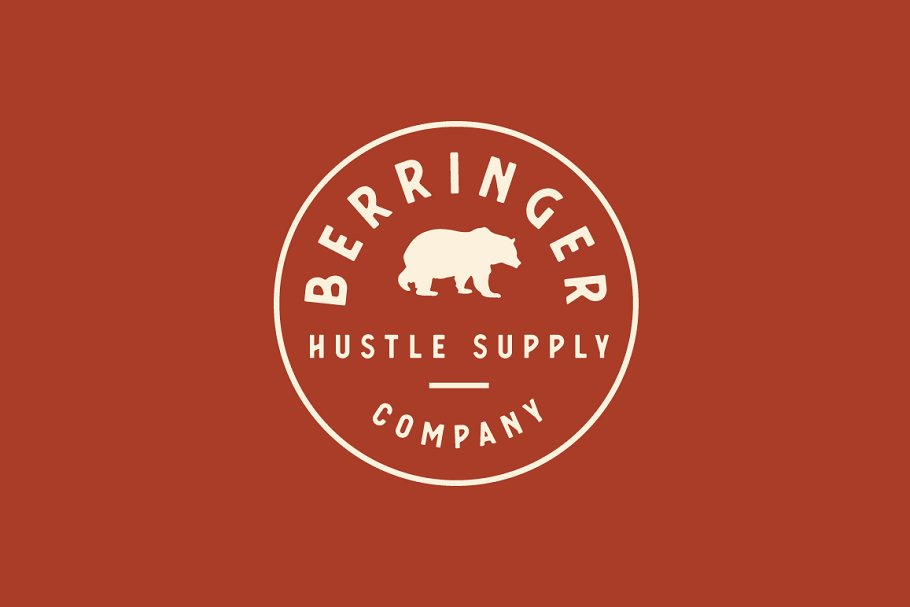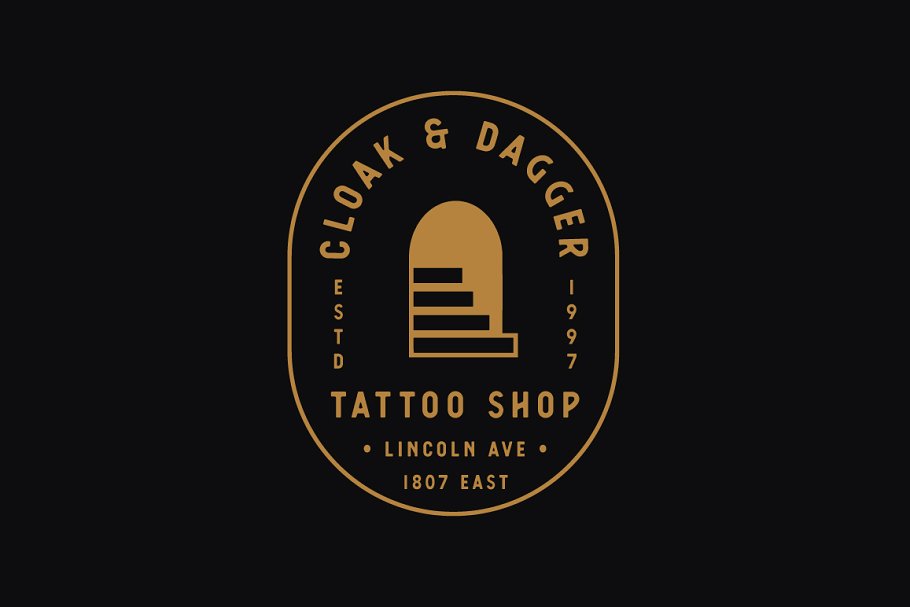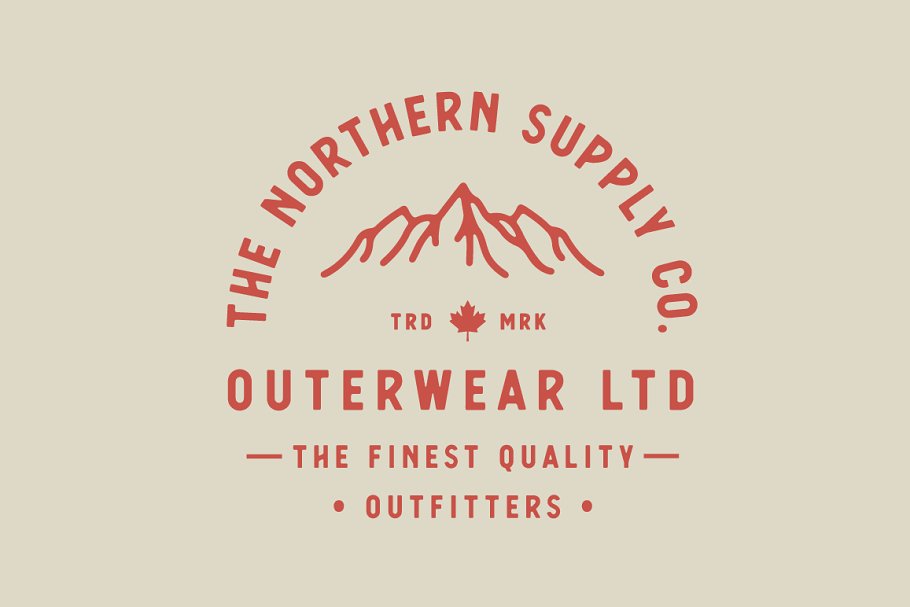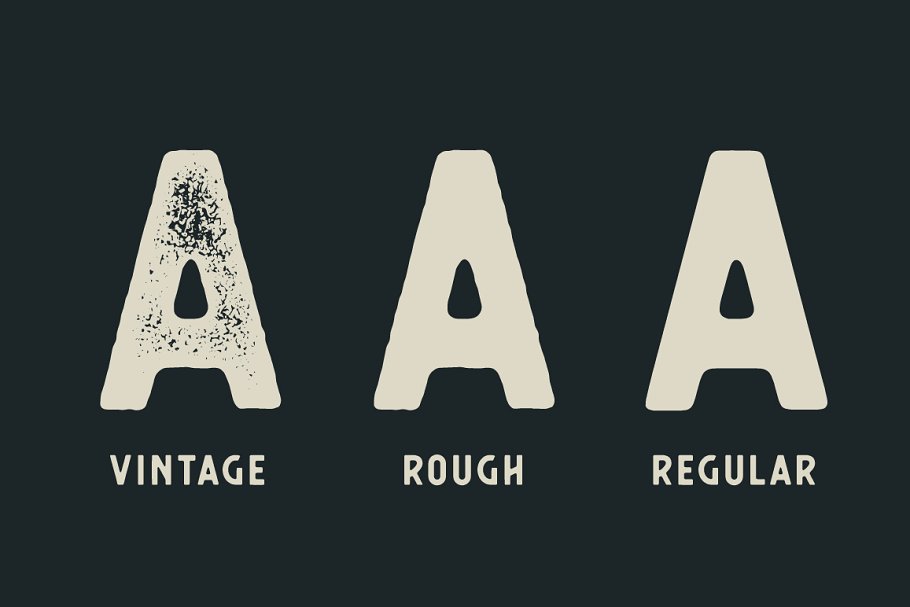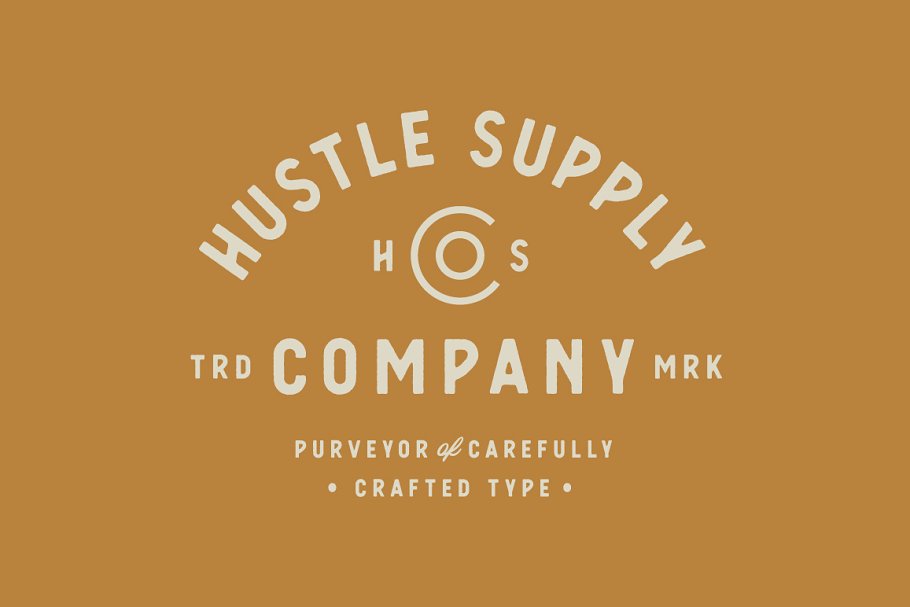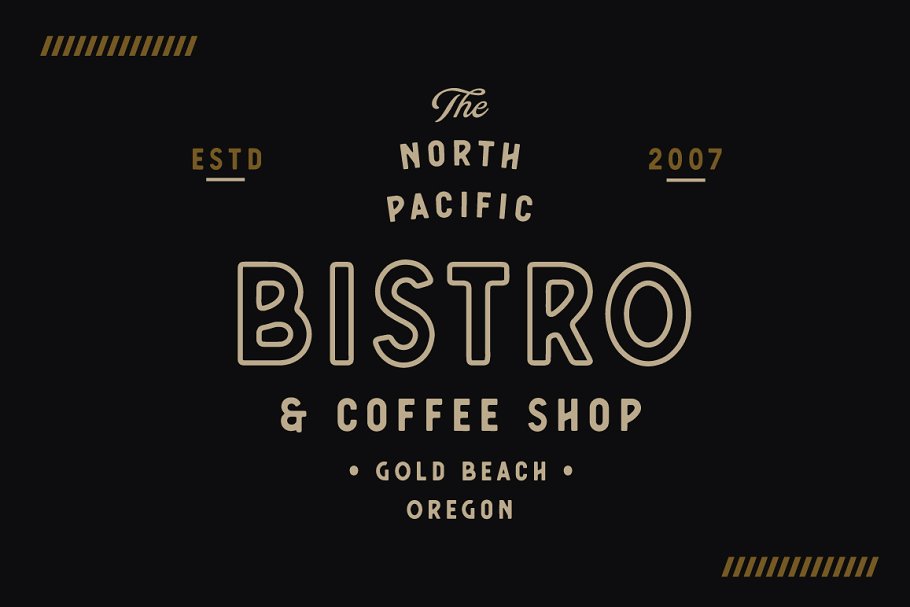
About the Berringer A Vintage Sans Serif Font
Introducing BerringerA Vintage Type FamilyBerringer is a vintage sans serif family including Textured, Rough & Clean versions as well as Oblique versions of each, Berringer includes 6 OTF & TTF files within the Zip folder, Click on the View All Glyphs Below image to see every glyph included in each font file, Berringer includes western european characters
Berringer is a versatile sans serif typeface that gives a vintage aesthetic, With it’s unique & distinct characteristics it sets itself apart, while also maintaining a strong timeless appeal overall, Rough & Textured versions allow Berringer to be a complete set without the need for 3rd party effects to create a printed look, eliminating a step in the process of finalizing your piece